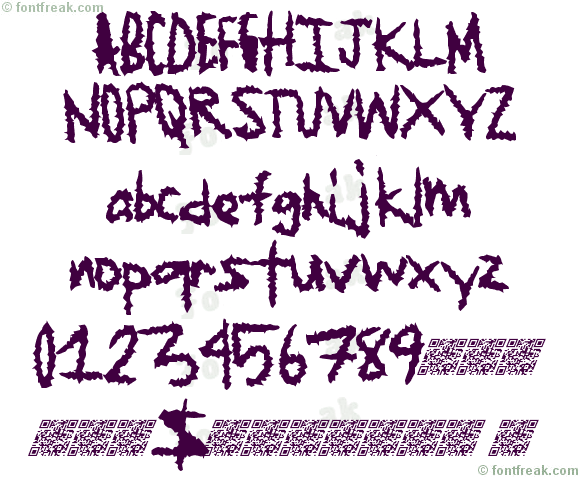
JagedEdge
About JagedEdge
JagedEdge by Xerographer Fonts is a striking display typeface that exudes a bold and edgy aesthetic. This freeware font features a unique, jagged design that captures attention with its irregular shapes and sharp angles. The stroke weight varies throughout the characters, providing a dynamic visual flow that enhances its distinctiveness. With minimal contrast and a somewhat rough texture, JagedEdge communicates a rebellious spirit, making it ideal for creative projects that seek to make a statement. The spacing is slightly tight, further emphasizing the urgency and intensity of the typeface.
This font is perfect for a variety of use cases. It can be effectively used for eye-catching movie posters, particularly in genres like horror or action, where a gritty vibe is essential. Additionally, JagedEdge works well for band logos or album covers, appealing to musicians who wish to convey an alternative or underground aesthetic. Restaurant menus, especially those featuring edgy or modern cuisine, can benefit from this font’s unique character. Furthermore, it can be a great choice for promotional materials targeting youth-oriented events, such as music festivals or art exhibitions.
Target audiences for the JagedEdge font include graphic designers looking for a distinctive typeface to elevate their projects, small business owners in creative industries who want to stand out, and content creators seeking to add an artistic flair to their visual content. The JagedEdge font free download offers an accessible option for those who wish to incorporate this bold typeface into their work without any licensing fees.
What sets JagedEdge apart is its unapologetic and unconventional design, making it a memorable choice for anyone looking to break the mold. Its fierce style and versatility allow it to adapt to various creative contexts, ensuring that your projects leave a lasting impression.